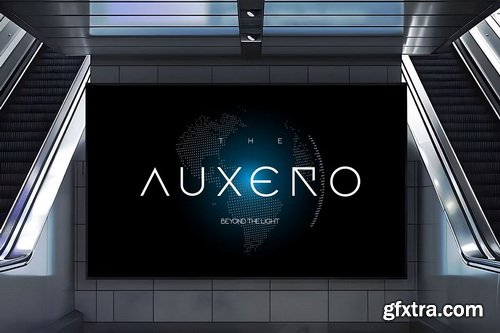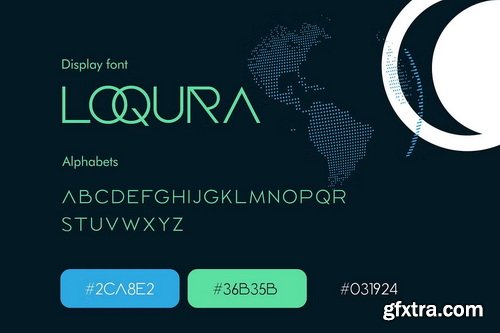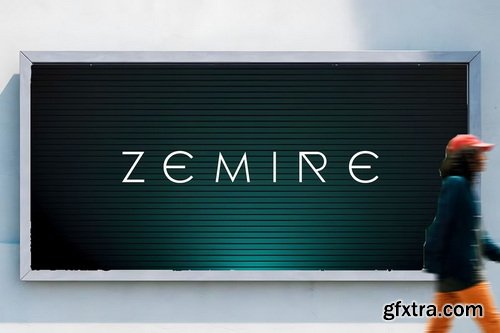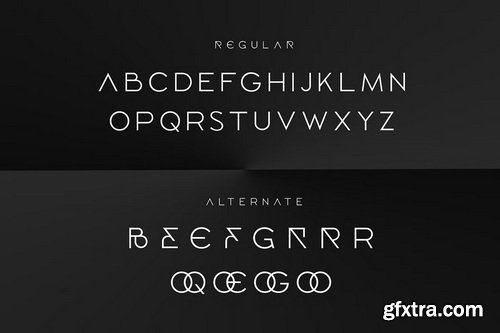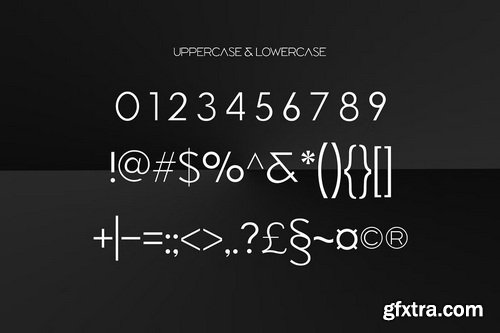
CreativeMarket - Loqura Sleek Futuristic Logo Font
- Step into the future of branding with LOQURA, a bold, geometric sans serif font designed to elevate your visual identity. With sleek lines, sharp curves, and a sophisticated Y2K-inspired style, LOQURA is the perfect choice for designers, creators, and brands who want to make a powerful first impression.
- Crafted for modern logos, stationery mockups, and bold headlines, LOQURA stands out in both print and digital environments. Its condensed shape and minimalist structure create a striking presence across platforms like Canva, Adobe Illustrator, and more. Whether you're working on a fashion brand, startup pitch deck, tech website, or social media campaign, LOQURA helps your message appear confident, elegant, and unmistakably modern.